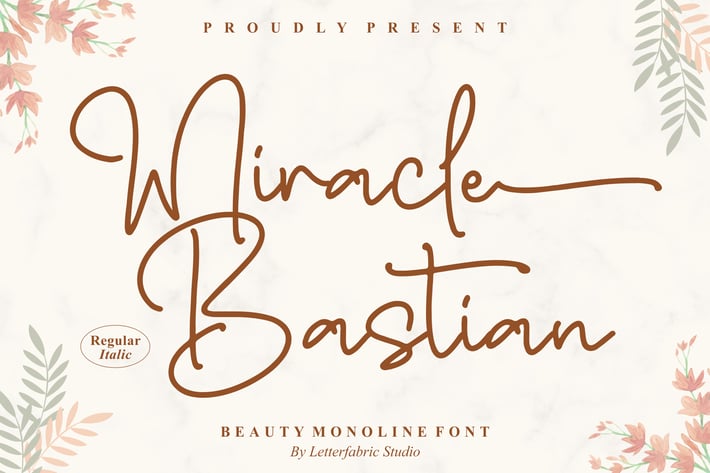
Miracle Bastian Monoline Font
Miracle Bastian is a graceful monoline script with soft curves, generous loops, and a calm, contemporary rhythm. Its clean stroke and balanced contrast deliver a handwritten feel that stays legible at display and small sizes alike. Use it to bring warmth and polish to brands, packaging, and stationery while keeping a modern, minimalist vibe.
+ Uppercase & lowercase letters
+ Numerals & punctuation
+ Standard ligatures
+ Stylistic alternates & swashes
+ Optimized kerning for smooth flow
+ Multilingual support
+ Clean baseline, smooth monoline stroke
+ Wedding suites & invitations
+ Logos, submarks & branding systems
+ Social media posts & quote graphics
+ Product packaging & labels
+ Beauty/fashion lookbooks
+ Thank-you cards & greeting cards
+ Photography watermarks & blog headers
+ Stationery, signage & posters
A serene monoline signature—elegant, effortless, and beautifully modern.